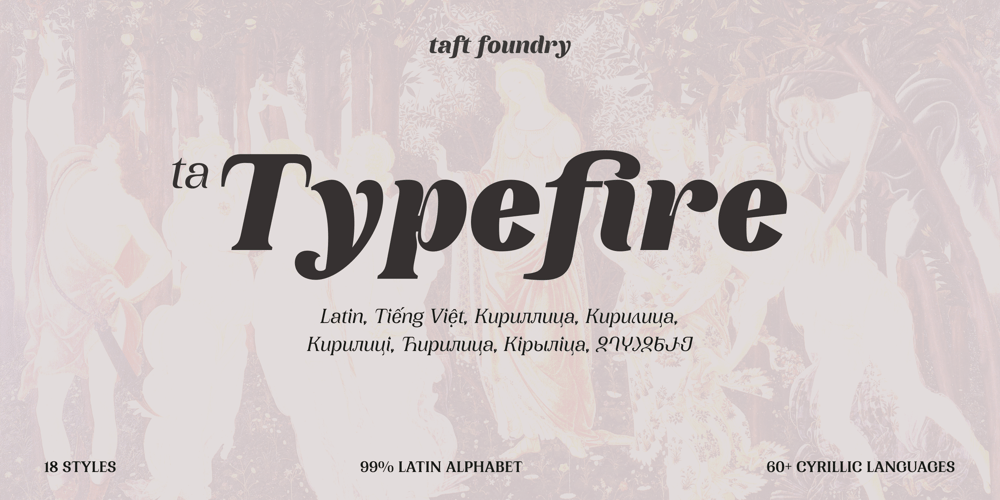
TA Typefire
TA Typefire font
TA Typefire Font Family was designed by Tural Aliyev and published by Tural Alisoy. TA Typefire contains 18 styles and family package options. TA Typefire font combines classic beauty with the needs of modern graphic design. Its features make it unique and create a wide range of use cases:TA Typefire supports 99% of the Latin alphabet, including Vietnamese, and over 60 languages using the Cyrillic alphabet. This font offers localizations for Bulgarian, Serbian, Macedonian, Chuvash, Bashkir, and Dutch languages, and includes stylistic sets for easy use in Figma. There is a specially designed italic version for the old Caucasian Albanian script.Initially, TA Typefire consisted of 8 styles, but with the update to version 3, 10 new styles were added. Now, with 18 different styles, you can perfect your designs even further. TA Typefire is an excellent tool for graphic designers, suitable for various projects with its wide range of styles. This font is ideal for expressing brand identity and adds a unique touch to your brand. The different styles and readability of TA Typefire will attract attention in advertising campaigns. Font is perfectly suited for editorial design, branding, magazines, logos, headings and more.Every line and letter of the TA Typefire font is meticulously designed. The combination of classic and modern design makes it special and memorable.Language supportLatin: Abenaki, Afaan-Oromo, Afar, Afrikaans, Albanian, Alsatian, Amis, Anuta, Aragonese, Aranese-Aromanian, Arrernte, Arvanitic (Latin), Asturian, Atayal, Aymara, Azerbaijani, Bashkir-(Latin), Basque, Belarusian (Latin), Bemba, Bikol, Bislama, Bosnian, Breton, Cape-Verdean-Creole, Catalan, Cebuano, Chamorro, Chavacano, Chichewa, Chickasaw, Cimbrian, Cofán, Cornish, Corsican, Creek, Crimean Tatar (Latin), Croatian, Czech, Danish, Dawan, Delaware, Dholuo, Drehu, Dutch, English, Esperanto, Estonian, Faroese, Fijian, Filipino, Finnish, Folkspraak, French, Frisian, Friulian, Gagauz (Latin), Galician, Ganda, Genoese, German, Gikuyu, Gooniyandi, Greenlandic (Kalaallisut), Guadeloupean-Creole, Gwich’in, Haitian-Creole, Hän, Hawaiian, Hiligaynon, Hopi, Hotcąk (Latin), Hungarian, Icelandic, Ido, Igbo, Ilocano, Indonesian, Interglossa, Interlingua, Irish, Istro-Romanian, Italian, Jamaican, Javanese-(Latin), Jèrriais, Kaingang, Kala-Lagaw-Ya, Kapampangan (Latin), Kaqchikel, Karakalpak-(Latin), Karelian (Latin), Kashubian, Khinalig, Kikongo, Kinyarwanda, Kiribati, Kirundi, Klingon, Kurdish-(Latin), Ladinlatinlatino-sine-Flexione, Latvian, Lithuanian, Lojban, Lombard, Low-Saxon, Luxembourgish, Maasai, Makhuwa, Malay, Maltese, Manx, Māori, Marshallese, Marquesan, Megleno-Romanian, Meriam-Mir, Mirandese, Mohawk, Moldovan, Montagnais, Montenegrin, Murrinh-Patha, Nagamese-Creole, Nahuatl, Ndebele, Neapolitan, Ngiyambaa, Niuean, Noongar, Norwegian, Novial, Occidental, Occitan, Onĕipŏt, Oshiwambo, Ossetian (Latin), Palauan, Papiamento, Piedmontese, Polish, Portuguese, Potawatomi, Q’eqchi’, Quechua, Rarotongan, Romanian, Romansh, Rotokas, Sami-(Inari-Sami), Sami (Lule-Sami), Sami (Northern-Sami), Sami (Southern-Sami), Samoan, Sango, Saramaccan, Sardinian, Scottish-Gaelic, Serbian-(Latin), Seri, Seychellois-Creole, Shawnee, Shona, Sicilian, Silesian, Slovak, Slovenian, Slovio-(Latin), Somali, Sorbian (Lower-Sorbian), Sorbian (Upper-Sorbian), Sotho (Northern), Sotho-(Southern), Spanish, Sranan, Sundanese (Latin), Swahili, Swazi, Swedish, Tagalog, Tahitian, Tetum, Tok-Pisin, Tokelauan, Tongan, Tshiluba, Tsonga, Tswana, Tumbuka, Turkish, Turkmen-(Latin), Tuvaluan, Tzotzil, Uzbek (Latin), Venetian, Vepsian, Volapük, Võro, Wallisian, Walloon, Waray-Waray, Warlpiri, Wayuu, Welsh, Wik-Mungkan, Wiradjuri, Wolof, Xavante, Xhosa, Yapese, Yindjibarndi, Zapotec, Zarma, Zazaki, Zulu, Zuni.Cyrillic: Adyghe, Akhvakh, Aleut (Cyrillic), Altaic, Andi, Archi, Avar, Bashkir, Belarusian (Cyrillic), Besermyan, Bosnian (Cyrillic), Bulgarian (Cyrillic), Buryat, Chechen (Cyrillic), Chukchi, Chulym, Chuvash, Dargwa, Dungan, Enets, Even (Lamut), Gagauz, Godoberi, Ingush, Kabardino-Cherkess, Karaim, Karakalpak, Karata (Karata-Tukita), Karelian, Kazakh (Cyrillic), Ket, Kildin Sámi, Kirghiz, Komi-Zyrian, Koryak, Kumyk, Lak, Lezgian, Macedonian, Moldavian (Cyrillic), Mongolian, Mordvin-moksha, Nanai, Nganasan, Oroch, Ossetian, Russian, Rusyn, Saami, Serbian (Cyrillic), Soyot-Tsaatan, Tabasaran, Tadzhik, Tatar Volgaic, Tindi, Touva, Tsez, Turkmen (Cyrillic), Udege, Udmurt, Uighur (Cyrillic), Ukrainian, Ulch, Uzbek (Cyrillic), Veps, Yukagir.Script: Caucasian Albanian.